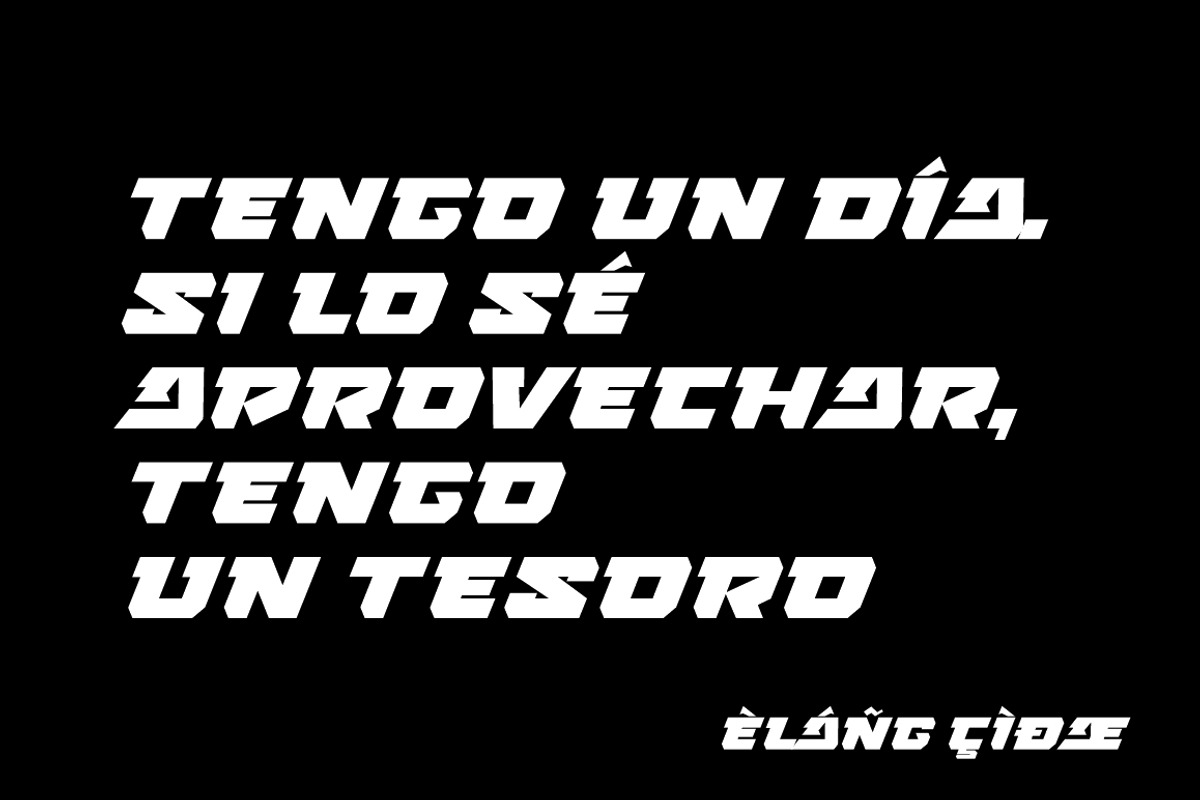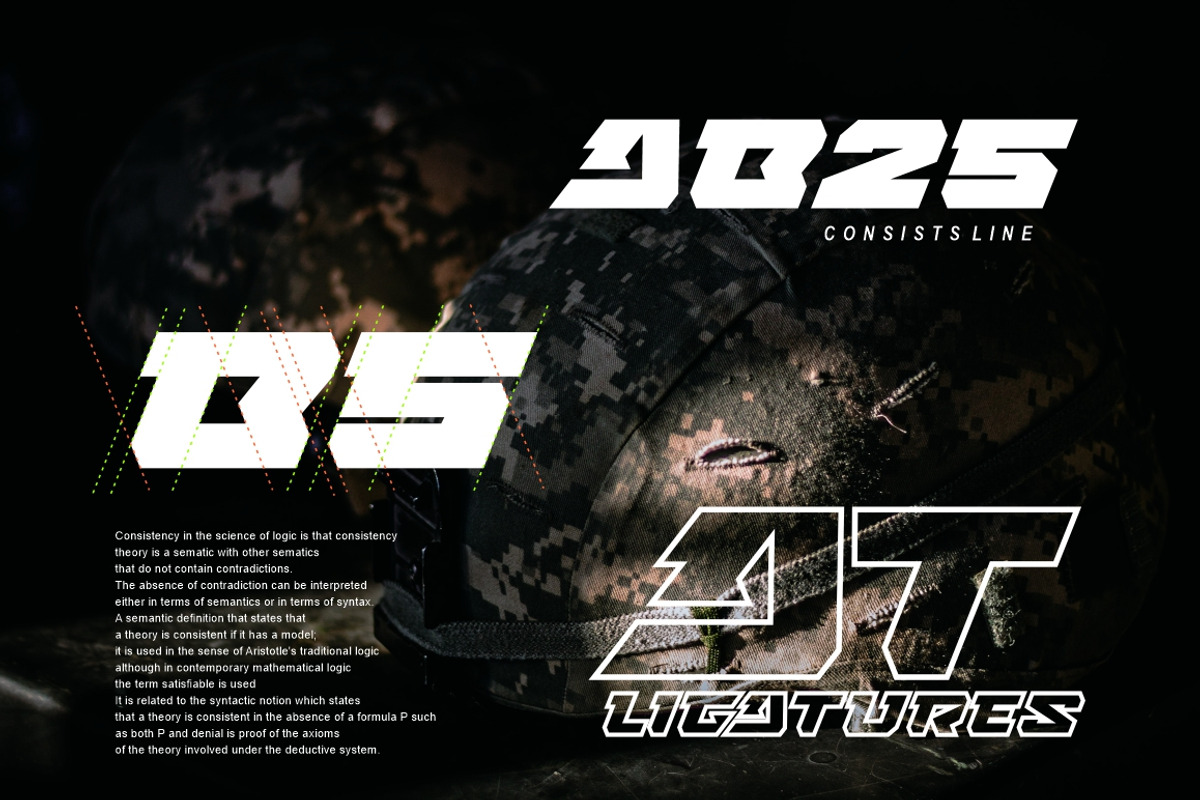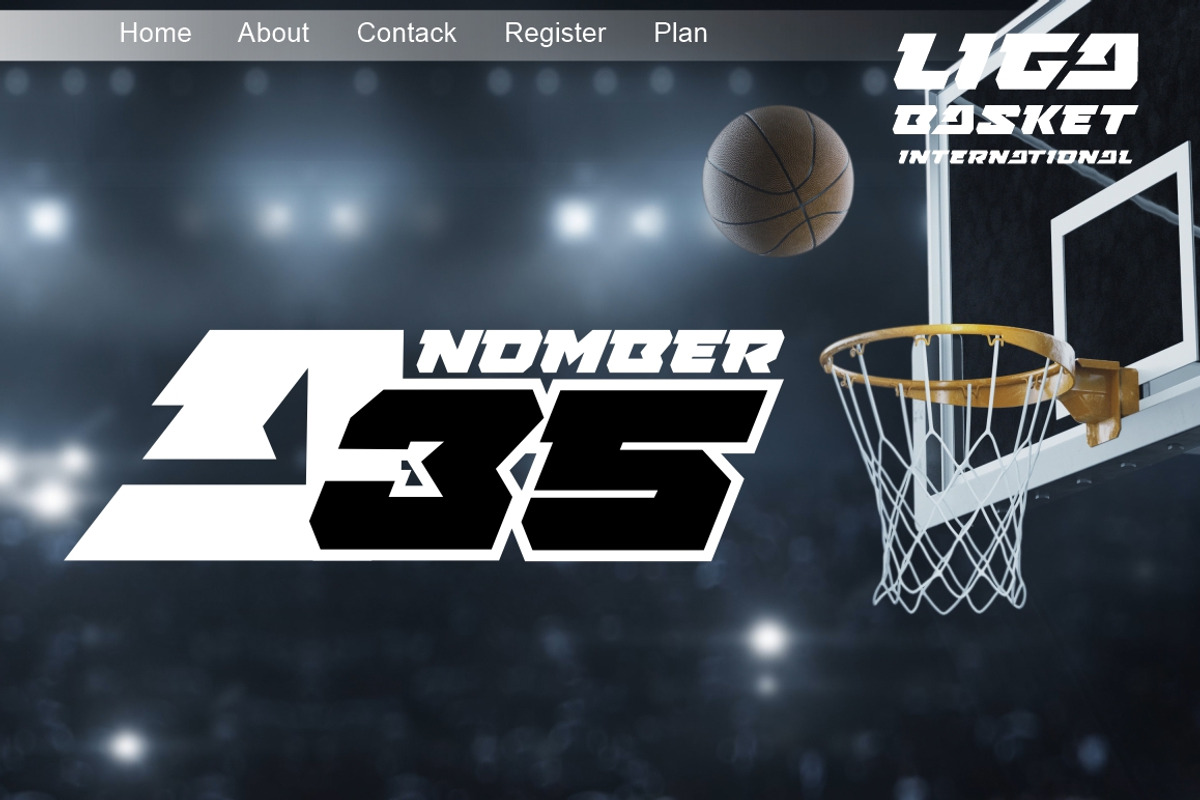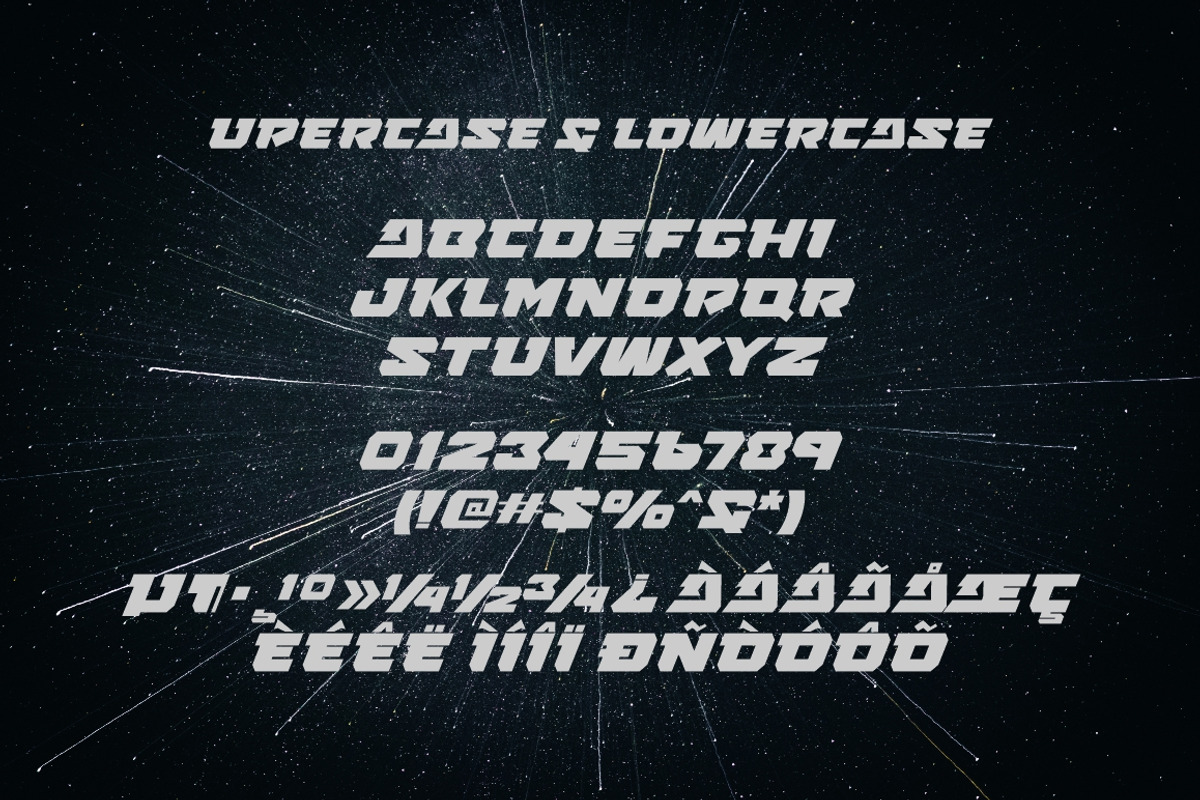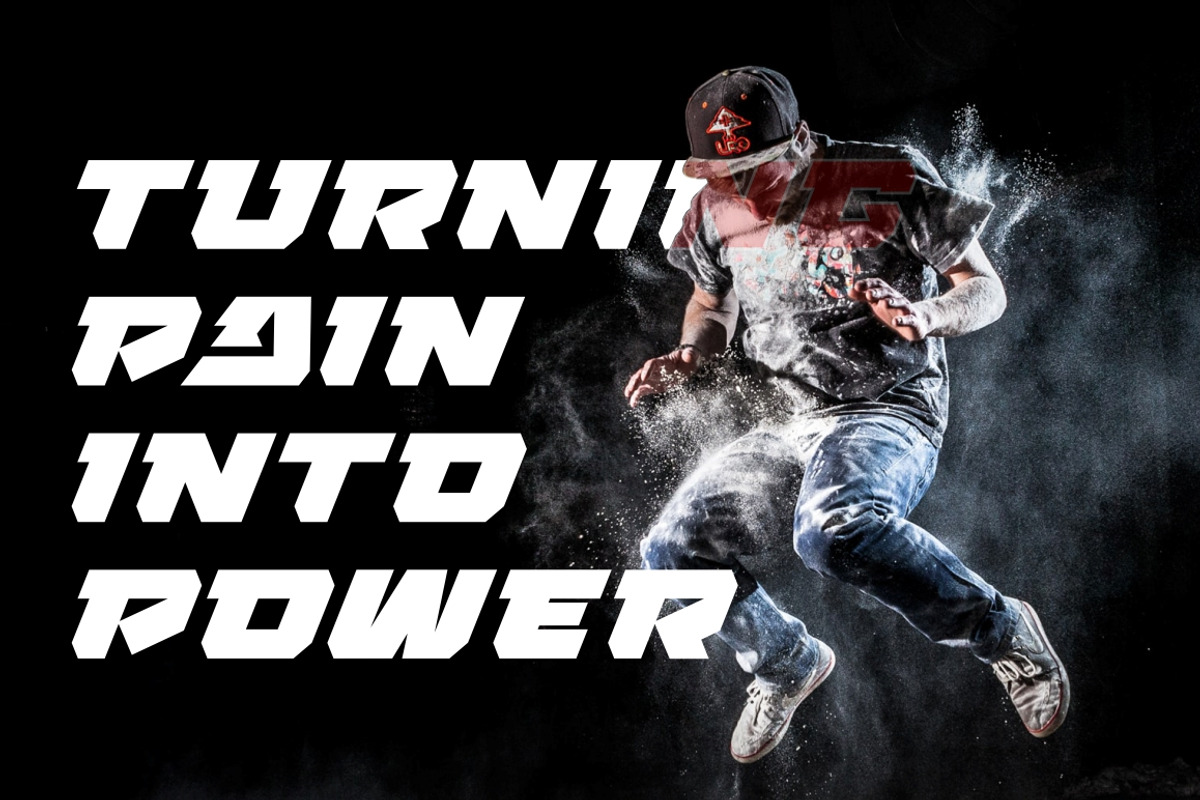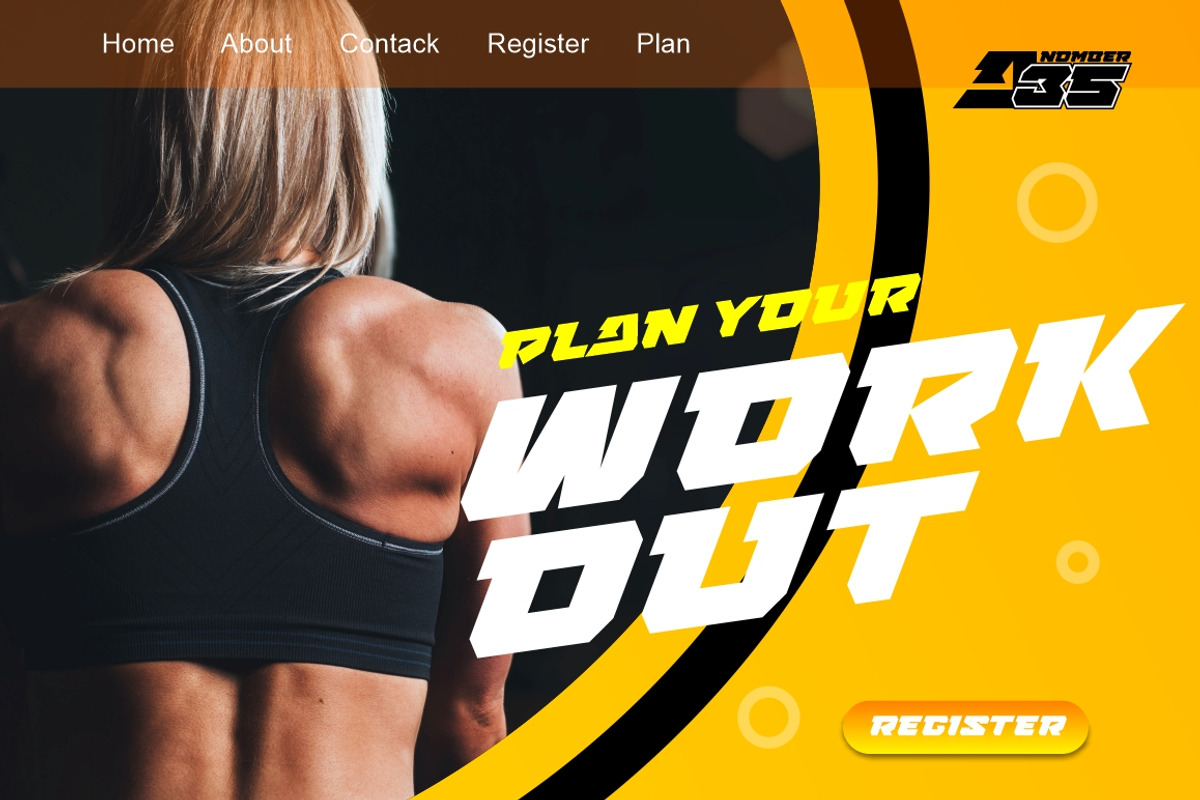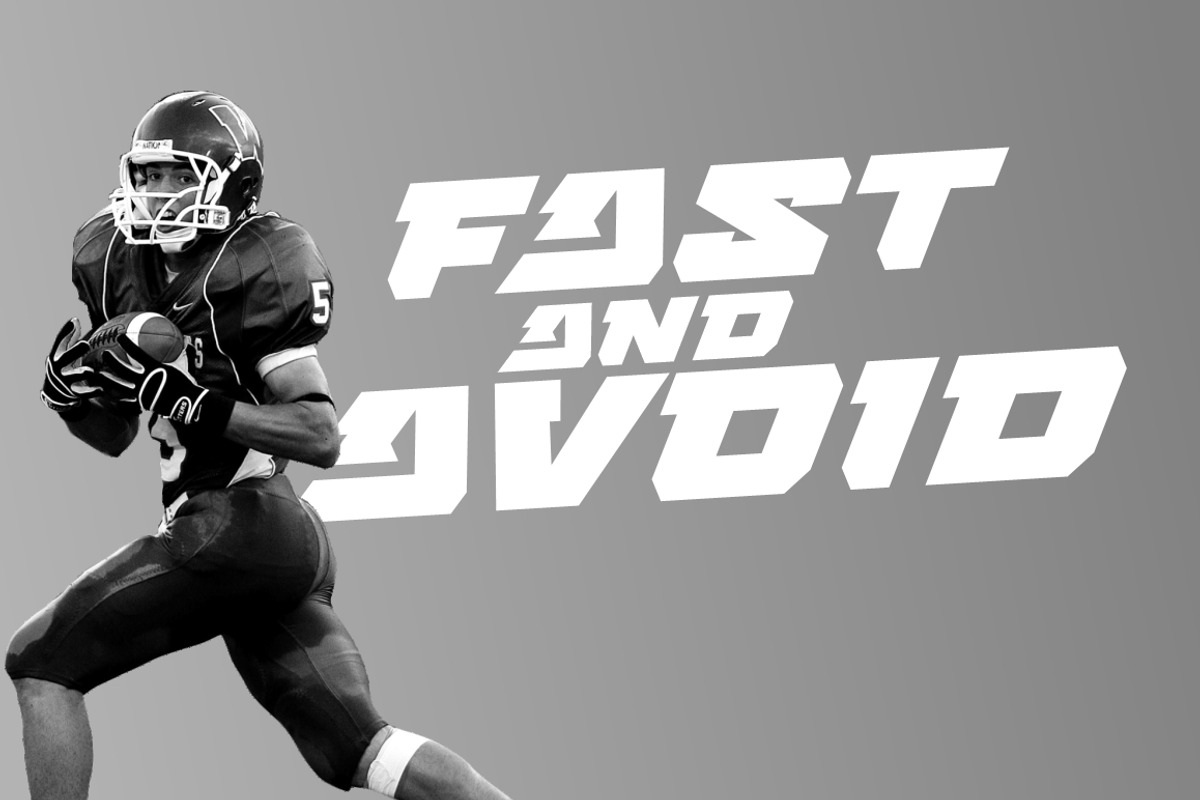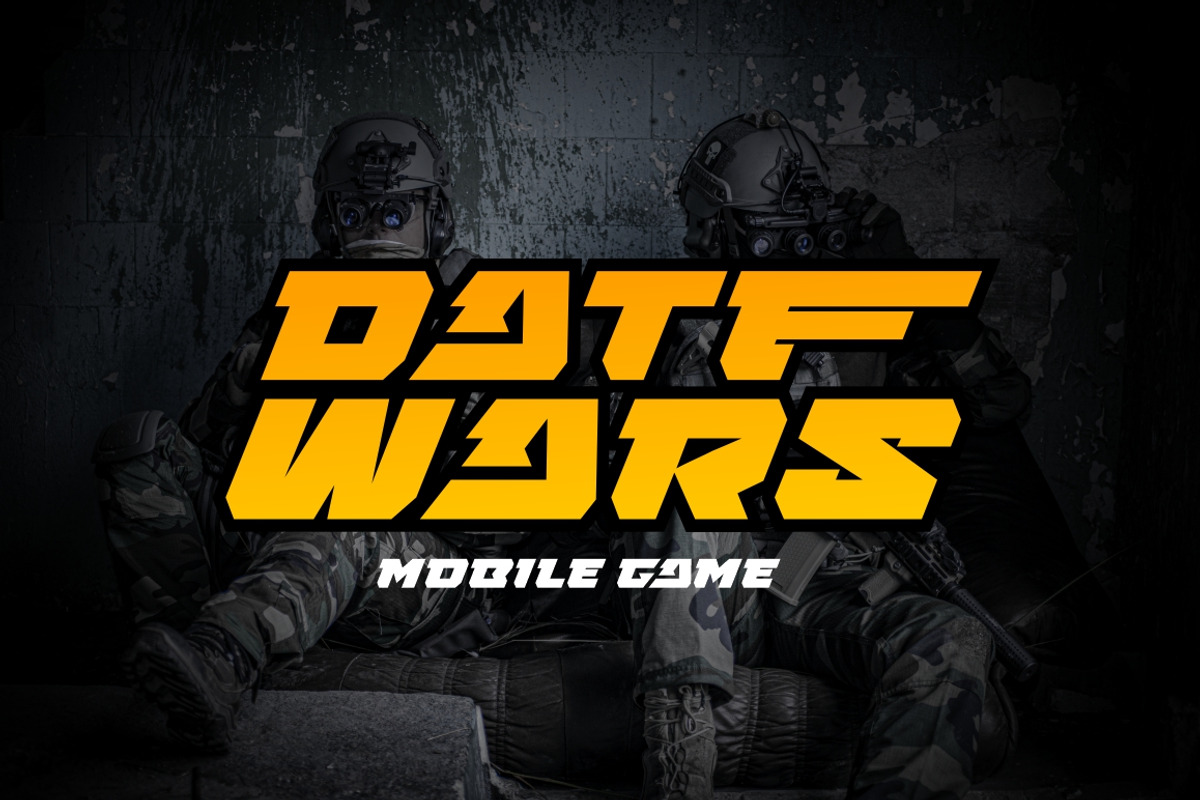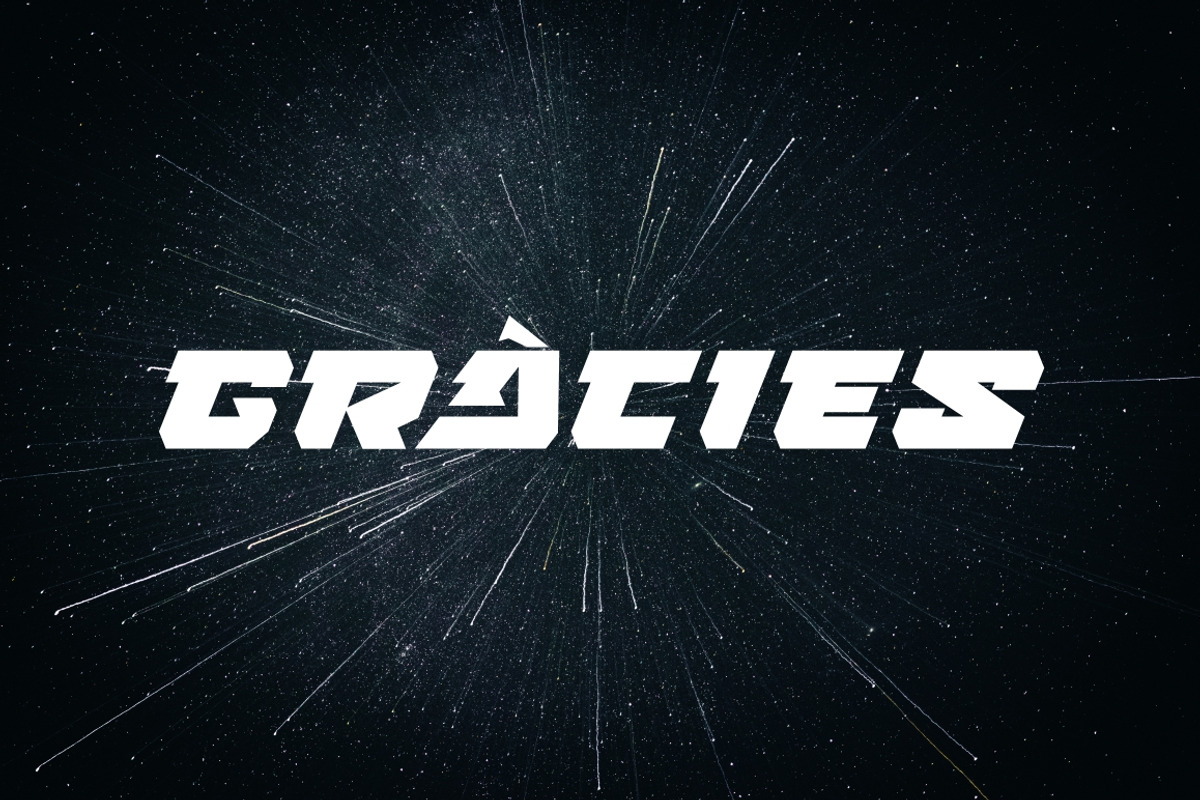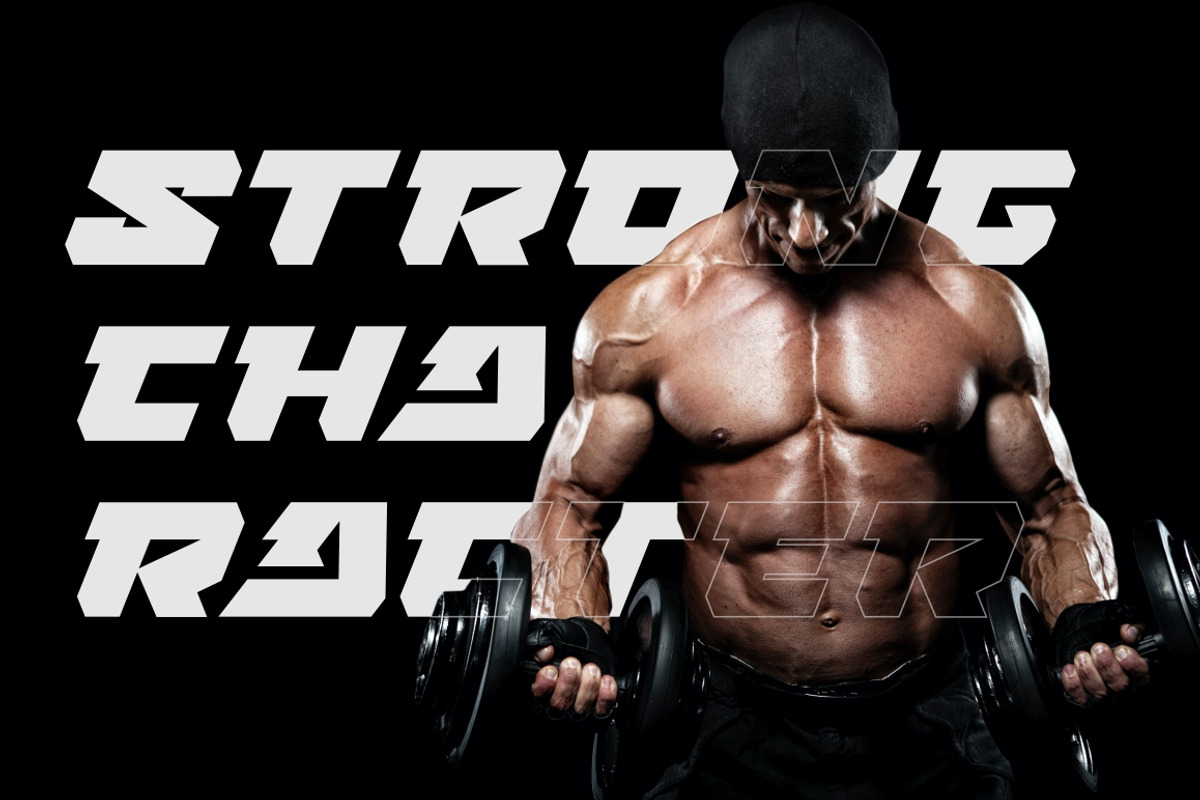
FORCE BATTLE - Aggressive Display
Force Battle is a bold and aggressive display font. Add this chunky lettered font to your designs and notice how it makes them come alive!
Force Battle is very suitable for movie titles, websites, clothing brands, magazines, identity brands, brochures, and more.